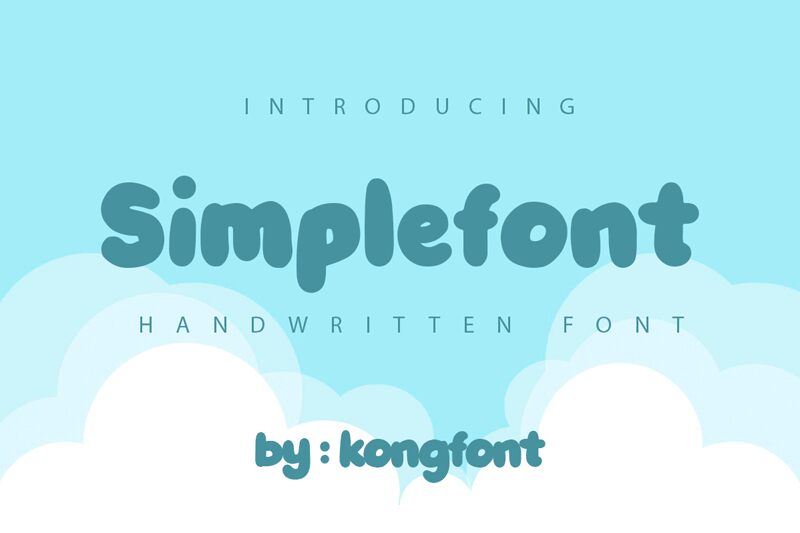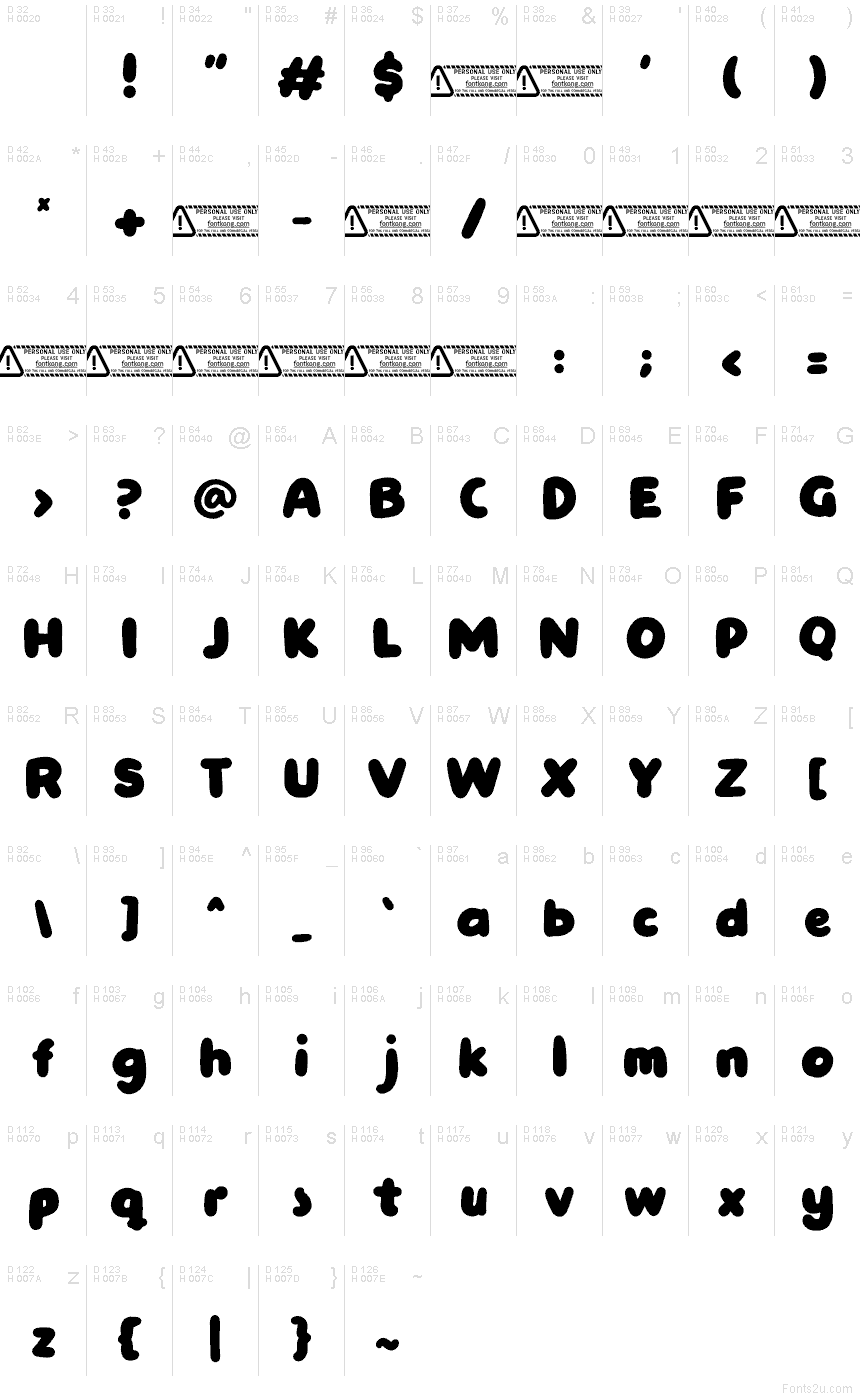
Simplefont font by Kong Font is a free cartoon display typeface that looks like it’s been shaped out of soft, inky bubbles. The letters are bold, rounded, and tightly packed, giving every word a friendly, squishy energy that jumps off the page. It reads clearly even at smaller sizes, but really comes alive when you blow it up for big, joyful headlines.
Using Simplefont, you can add instant playfulness to kids’ books, birthday invitations, school posters, YouTube thumbnails, game menus, and branding for fun-focused products. The chunky forms hold color and gradients beautifully, especially in bright, candy-like palettes. For a simple pairing, keep body text in a clean geometric sans and let this free font handle the loud, characterful titles.